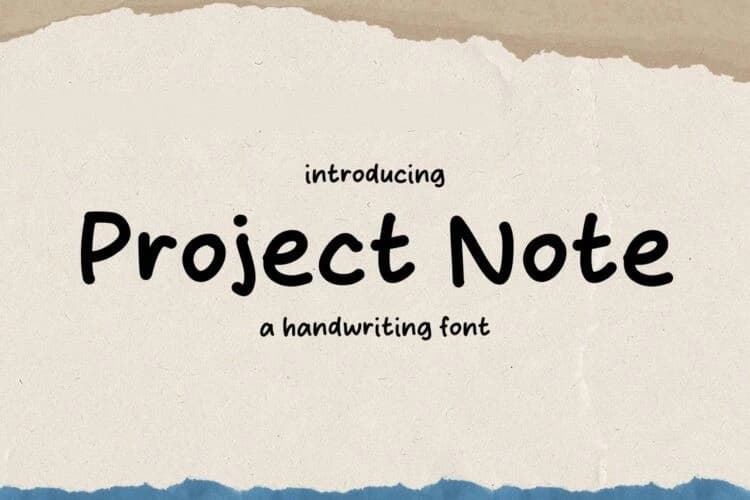
Project Note Font
Project Note Font is a handwritten script font designed to mimic natural, casual writing. It features smooth, flowing strokes and an informal style, making it ideal for projects that require a personal and friendly touch.